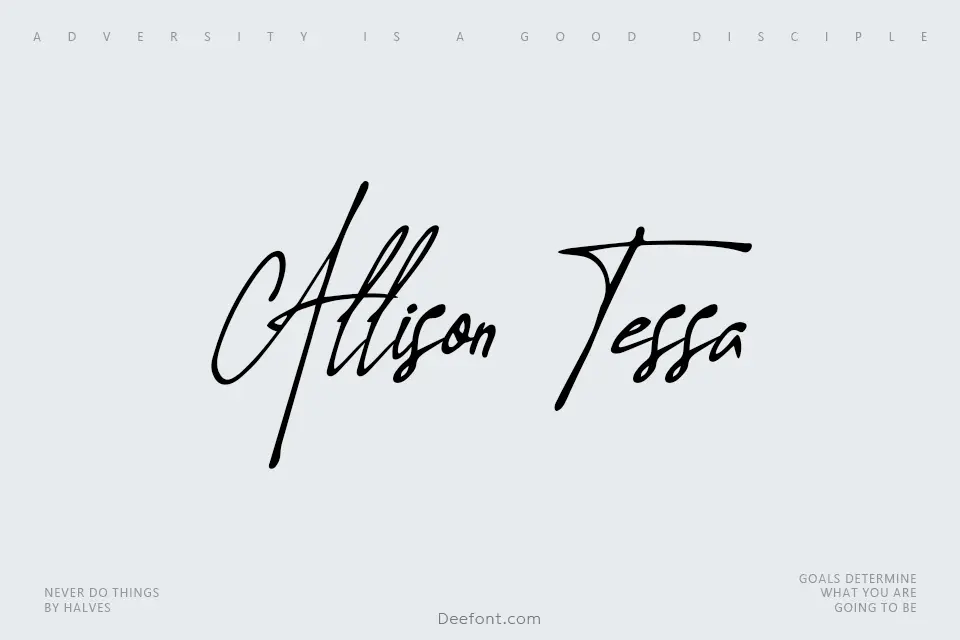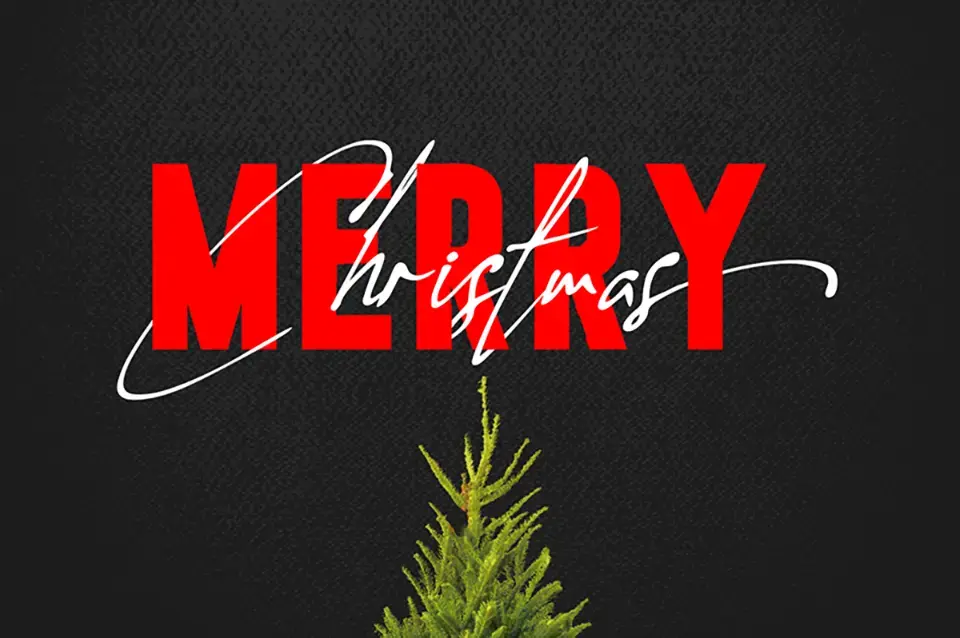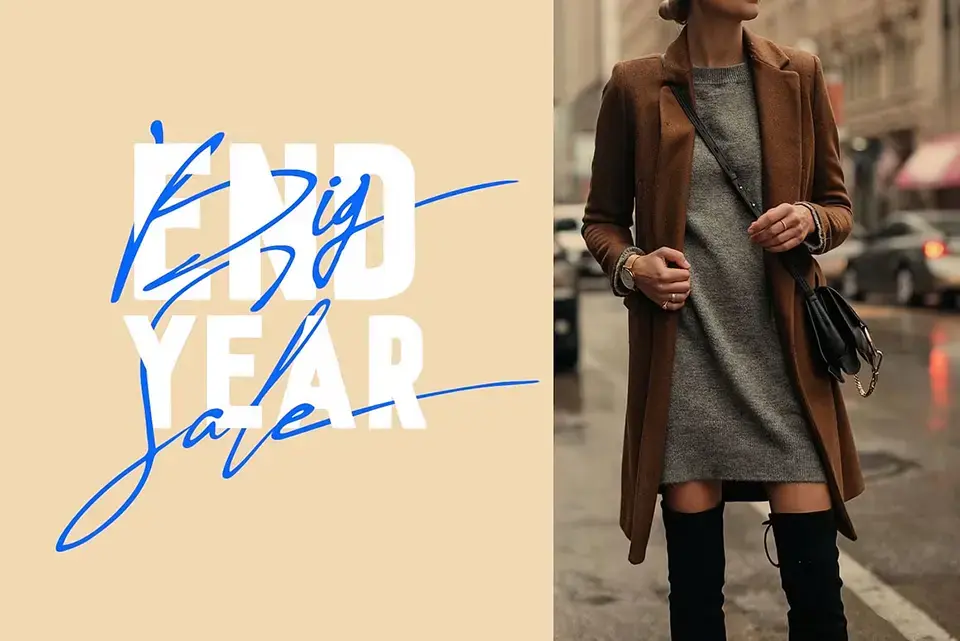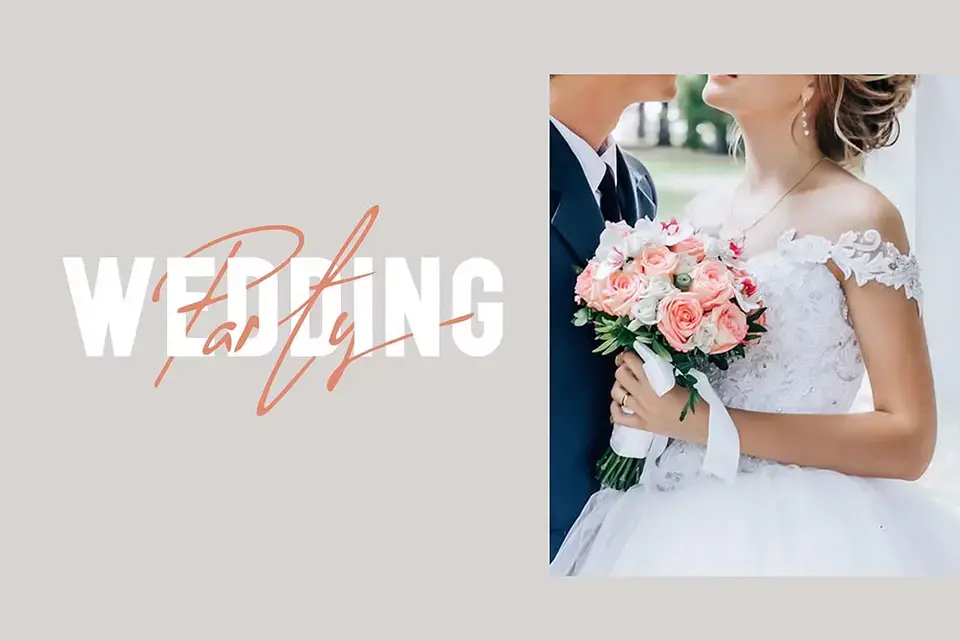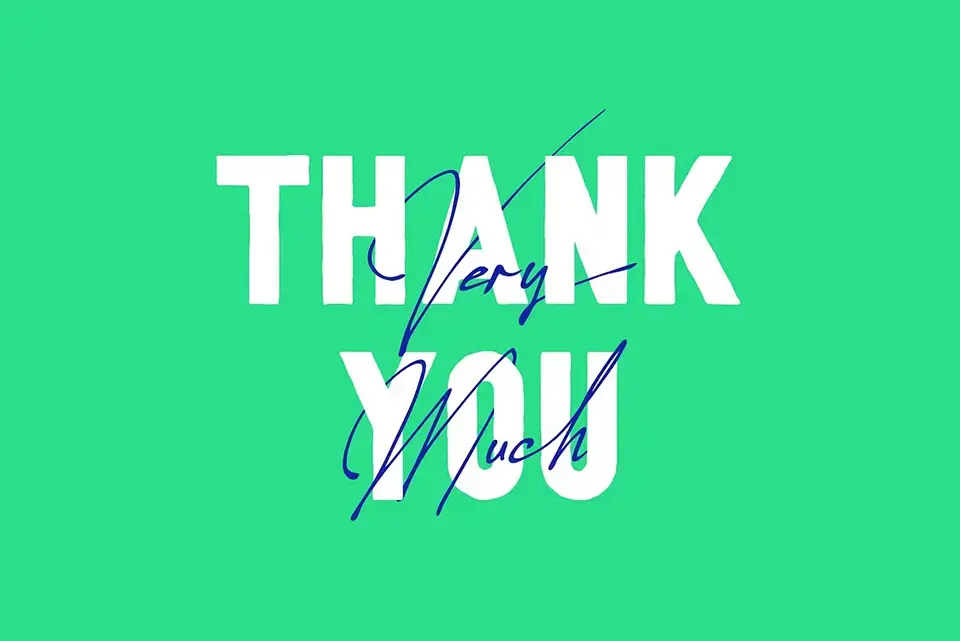
Allison Tessa Font
Allison Tessa is a sophisticated script typeface that combines flowing handwritten elegance with contemporary design sensibilities. Featuring smooth, naturally-curved letterforms with organic strokes, this display font excels in creating refined visual identities for high-end projects. The font’s graceful nature makes it ideal for wedding invitations, luxury packaging, decorative titles, greeting cards, and personal branding applications. With its signature-like characteristics and premium aesthetic, Allison Tessa brings an understated sophistication to any creative work requiring distinctive typography.